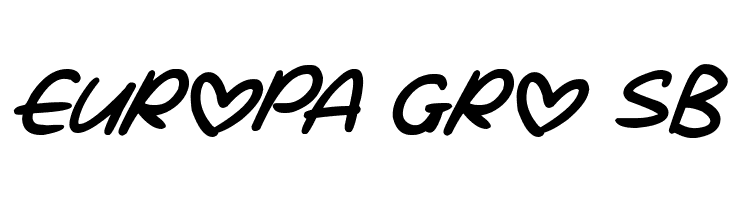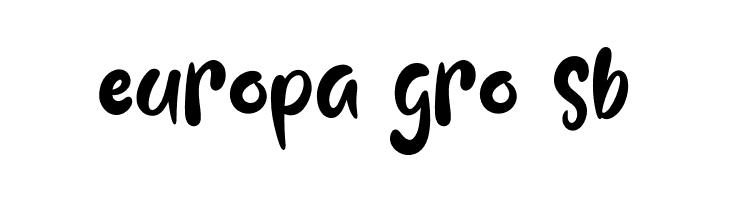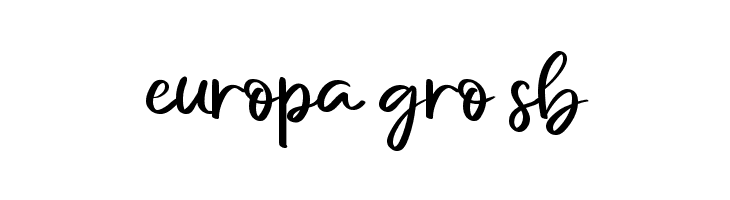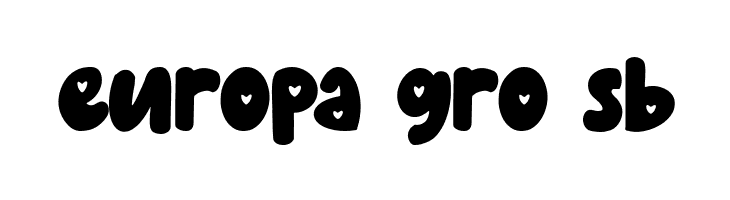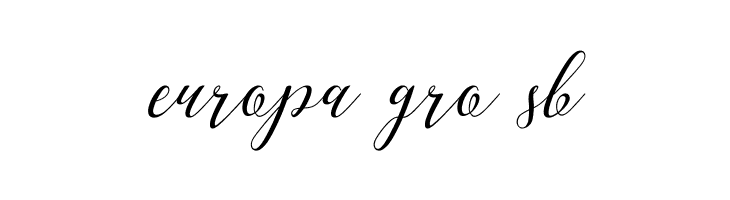
A graceful and elegant script font with flowing, cursive strokes.
A playful, handwritten font with smooth, flowing curves and a friendly feel.
A decorative, heart-adorned font with a playful and romantic style.
A playful, bold font with rounded characters and whimsical heart details.
A playful, hand-drawn font with heart-shaped accents and a whimsical style.
A playful, hand-drawn font with a whimsical and quirky style.